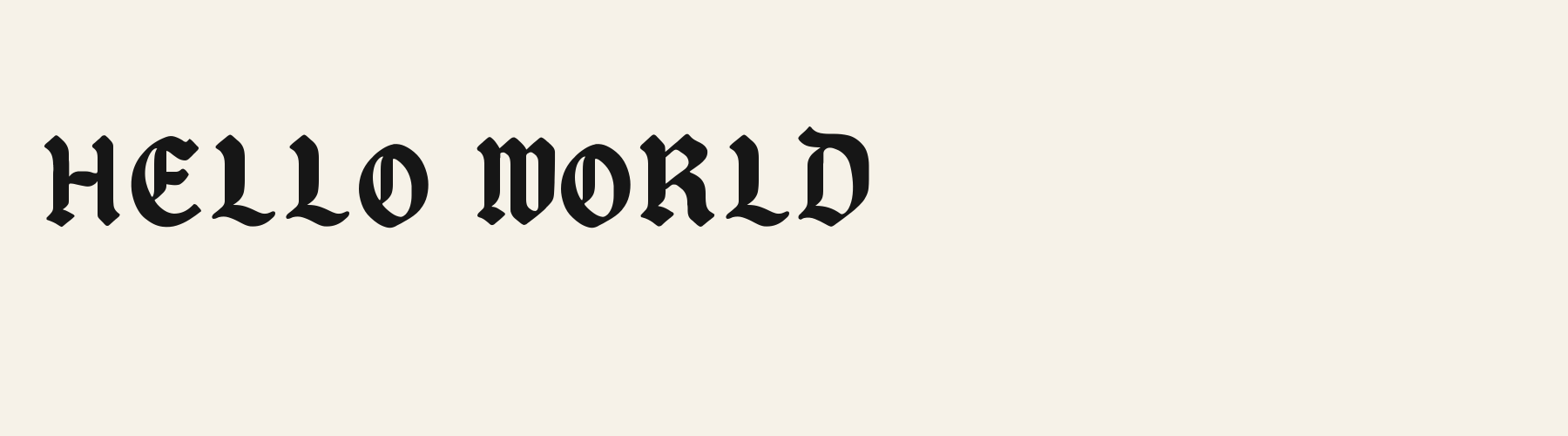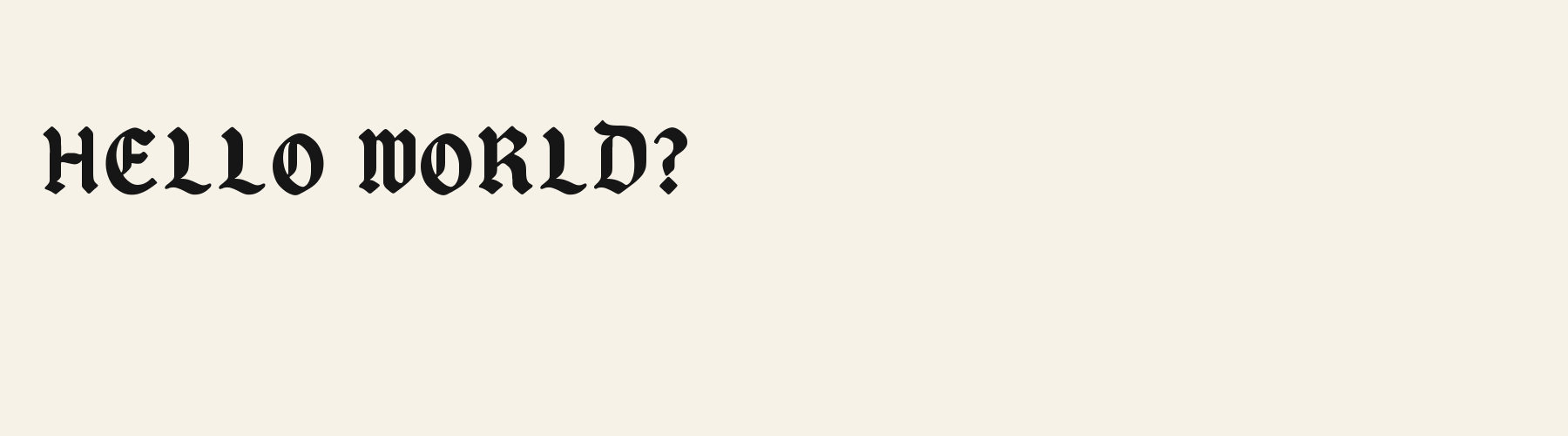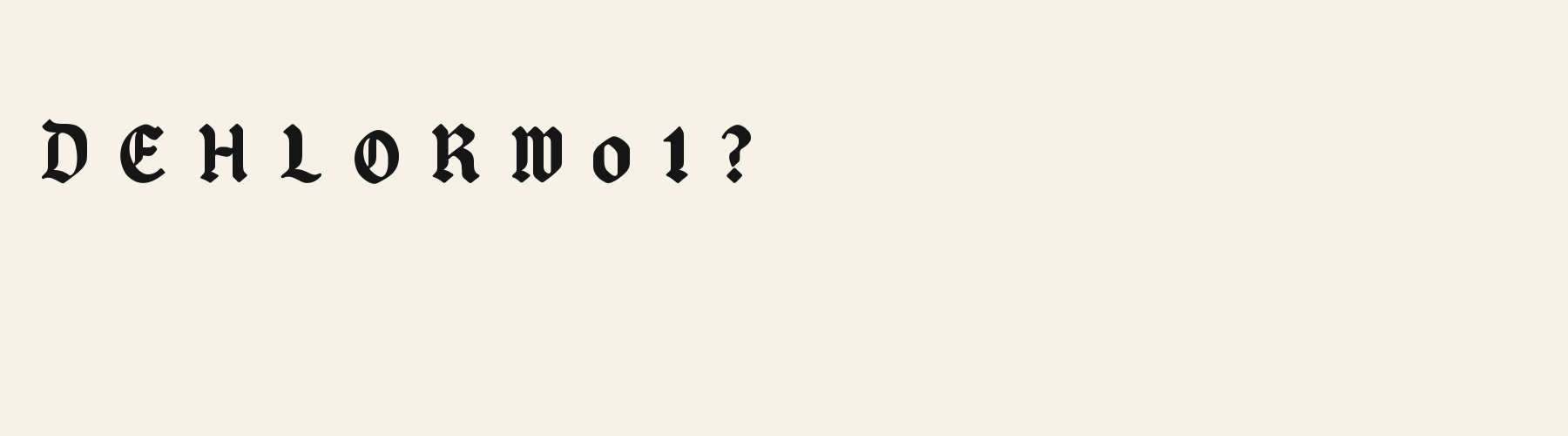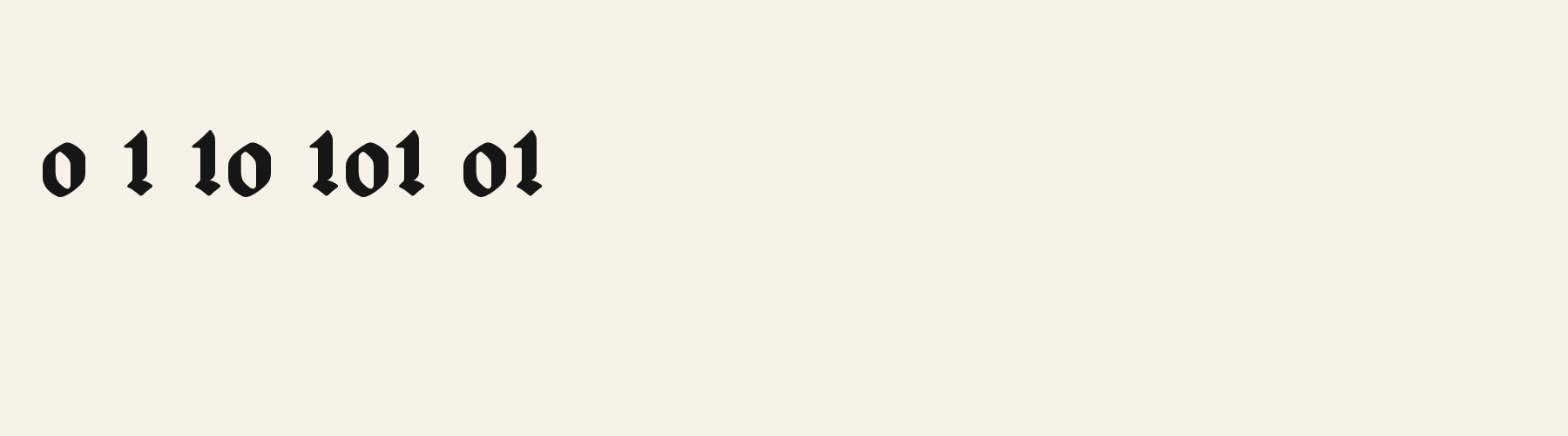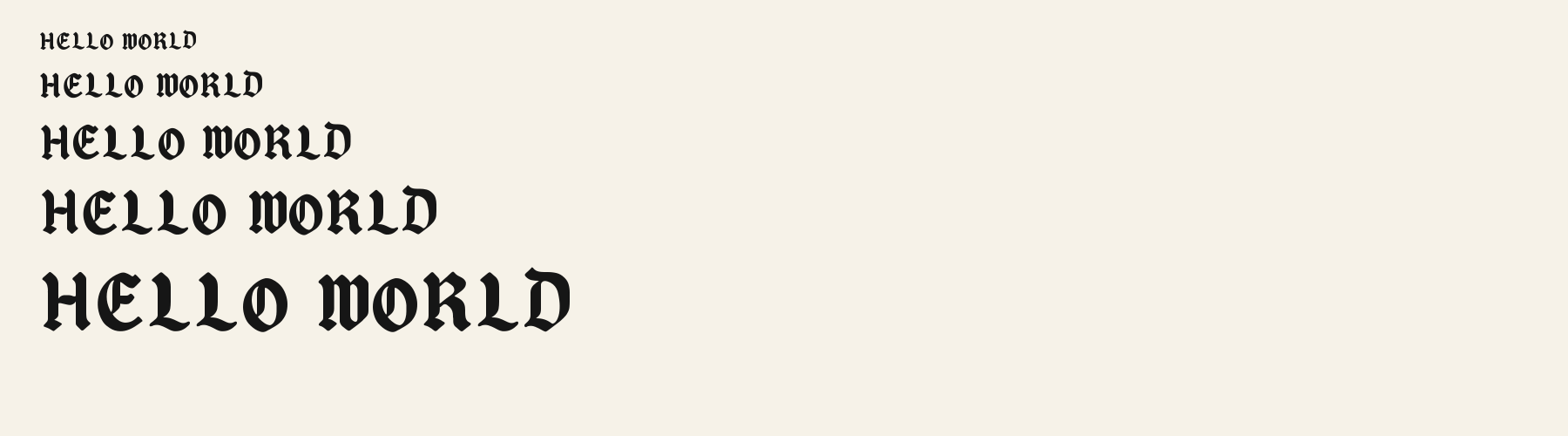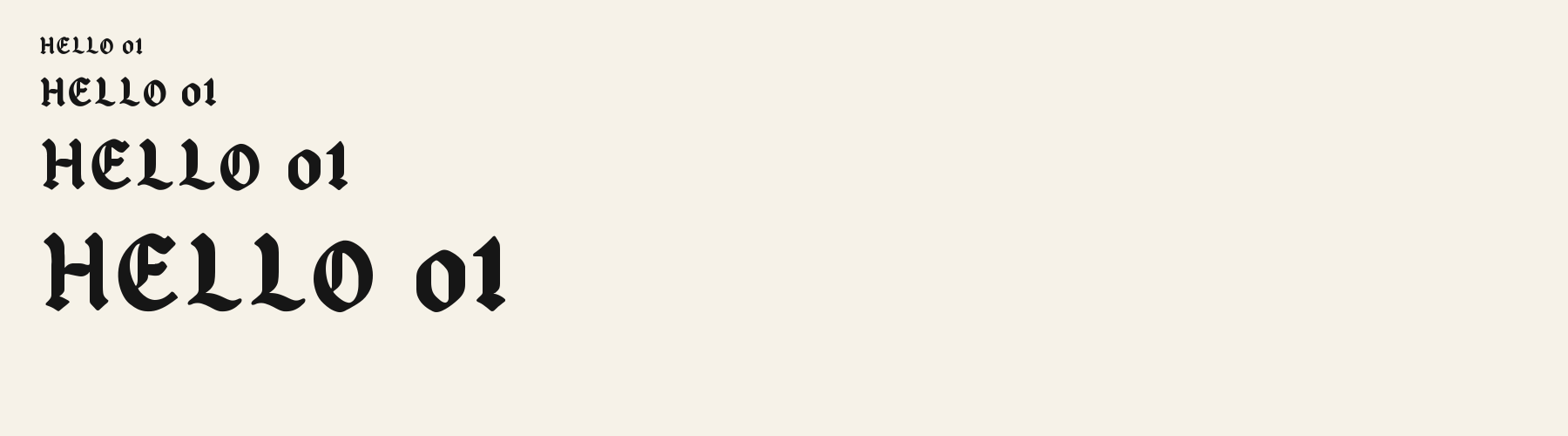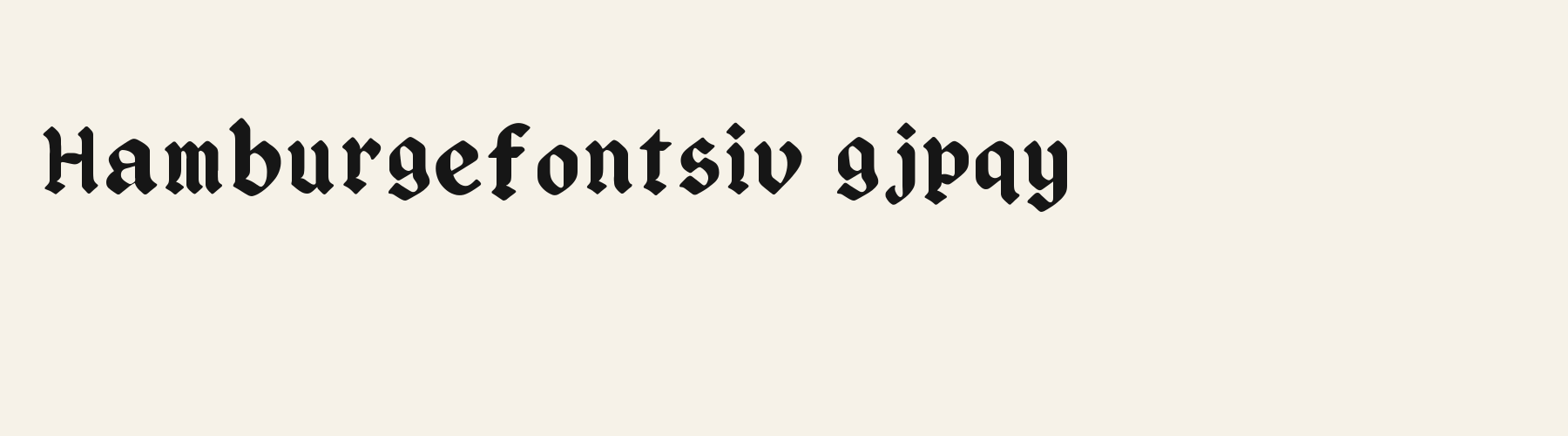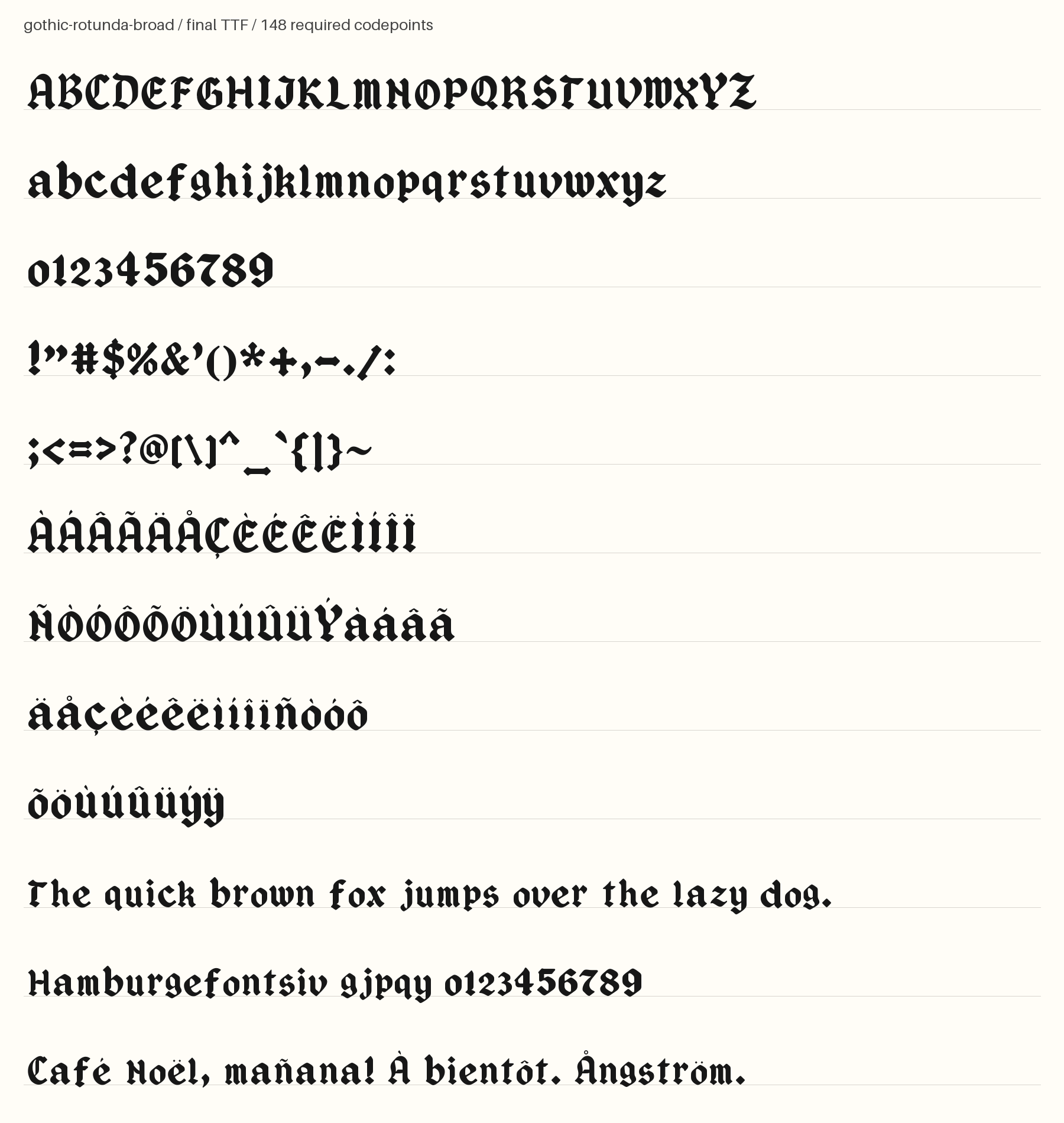
Gothic Rotunda Broad is a book covers and historical headings. Broad calligraphic vertical strokes, moderate contrast and restrained diamond ends. Best for book covers and historical headings.